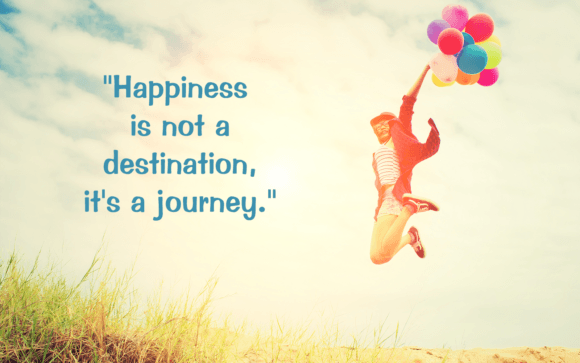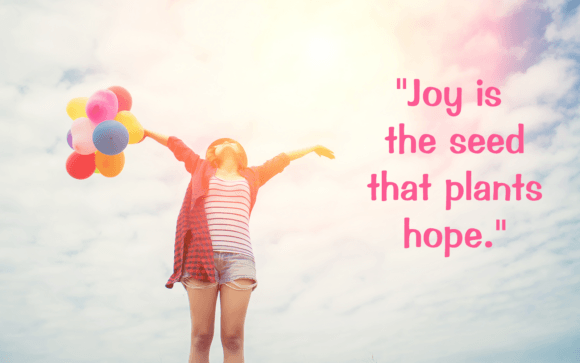
Introduction to Everplain Font
As a designer, you know the thrill of discovering the perfect font for a project. The moment when all the elements come together, and your vision takes shape. For me, that moment came when I stumbled upon the Everplain Font – a beautiful blend of classic and modern styles that has since become a go-to resource for my creative projects.
Everplain Font is more than just a design element; it’s a key to unlocking the perfect balance of elegance and clarity in your work. Its clean lines and balanced curves make it an ideal choice for branding, editorial, and digital projects. Whether you’re working on a high-quality print piece or a digital design with a transparent background, Everplain Font offers a refined style that stands out without overpowering.
Key Features of Everplain Font
- High-quality, professional design perfect for any creative project
- Features a transparent background, allowing for easy customization and flexibility
- Includes a wide range of characters, including Latin, Cyrillic, and Greek alphabets
- Designed at a high resolution (300 DPI) for crisp and clear display on various devices
- Unique, modern design that is ideal for digital and print applications
Honest Review: Everplain Font
As a designer, I’ve had the chance to work with many fonts, but the Everplain Font has definitely caught my attention. I downloaded it as a free download, hoping it would be a valuable addition to my design resource library.
What works well is the clean and elegant design of the font. The transparent background allows for seamless integration with other design elements, making it perfect for creative projects. The high quality of the font is also noticeable, with crisp and clear typography that’s easy to read.
- ✨ Elegant and clean design
- ✨ Transparent background for easy integration
- ✨ High quality typography
However, there are a few limitations to consider. The font only comes in a few weights, which can limit its versatility in certain design scenarios. Additionally, the font’s design can feel a bit generic, which may not be ideal for designers looking for something unique.
Overall, I’m impressed with the Everplain Font, but I wouldn’t consider it a must-have for every designer. It’s a solid addition to any design library, but it’s not without its limitations. ⚠️
Tips for Getting the Most Out of Everplain Font
To get the most out of the Everplain Font, experiment with different font sizes, colors, and styles to achieve a unique design look. Use the transparent background feature to create visually appealing designs. Also, combine the font with other design elements to create a cohesive and professional design.
The Everplain Font is perfect for a variety of design projects, including logos, business cards, posters, and presentations. Its high-quality design and transparent background feature make it an excellent choice for any creative project.